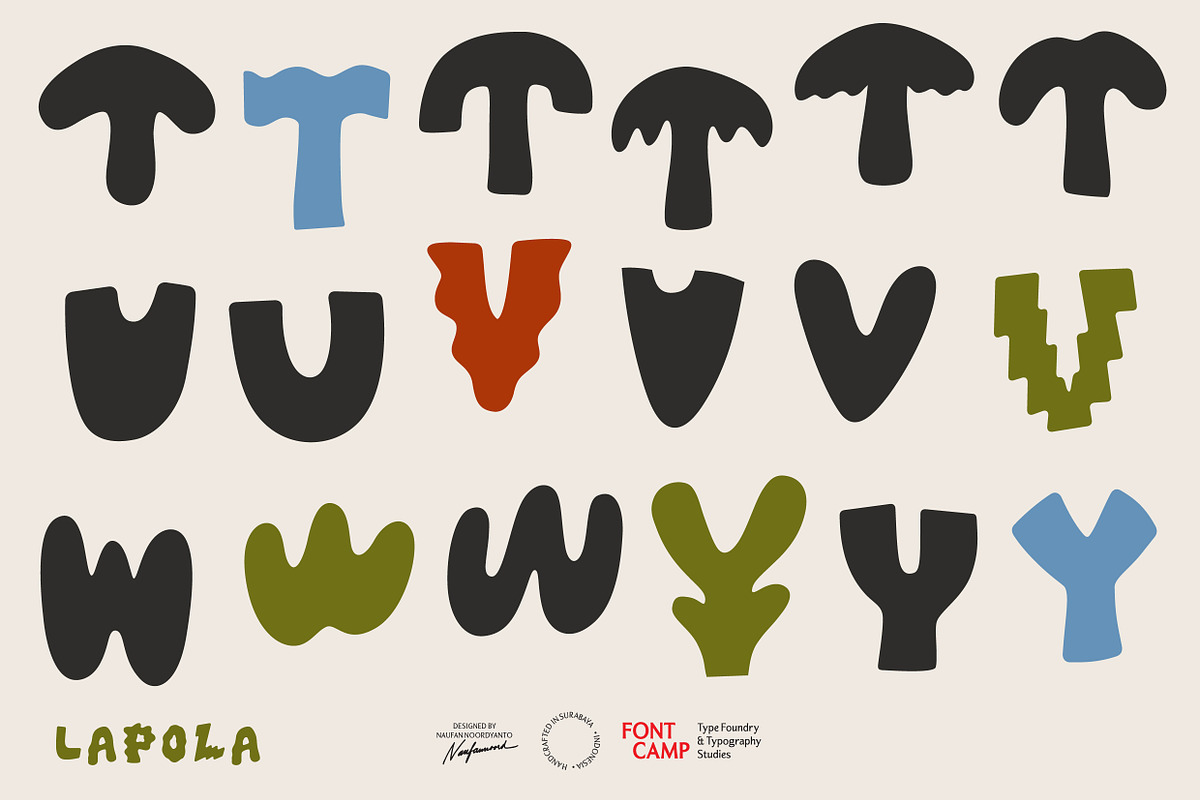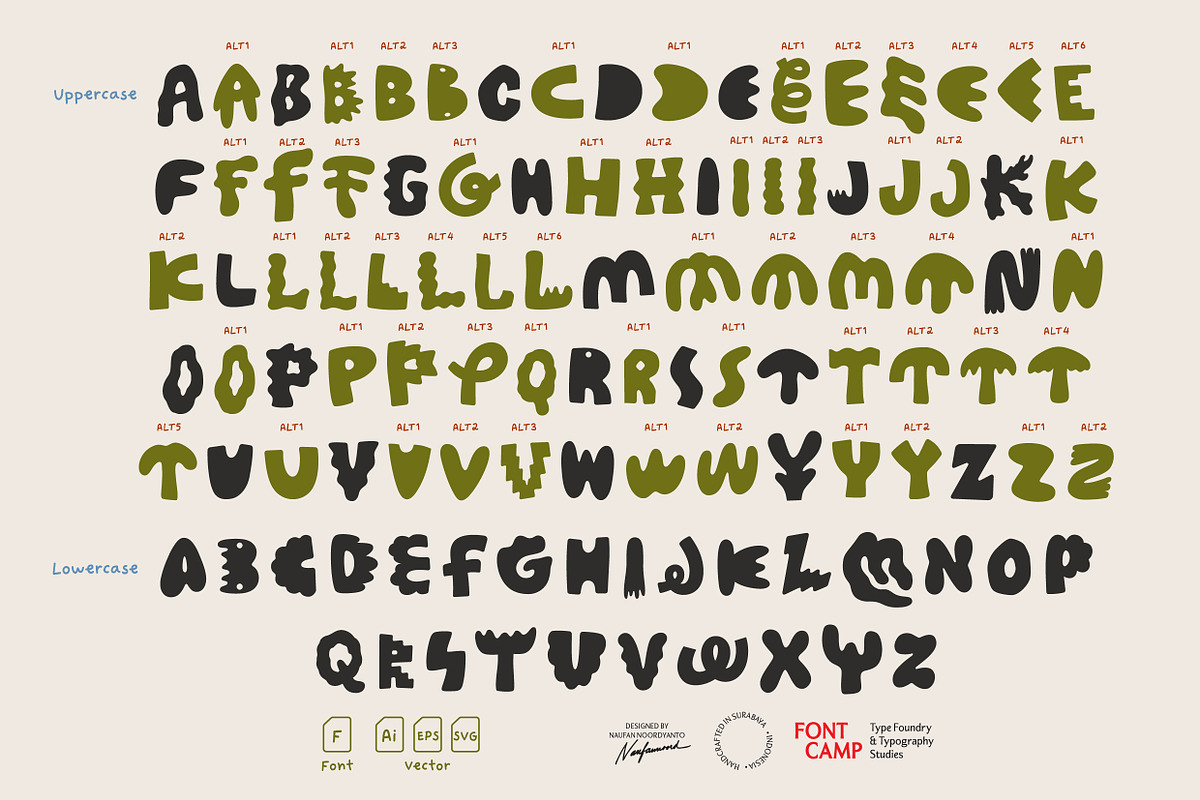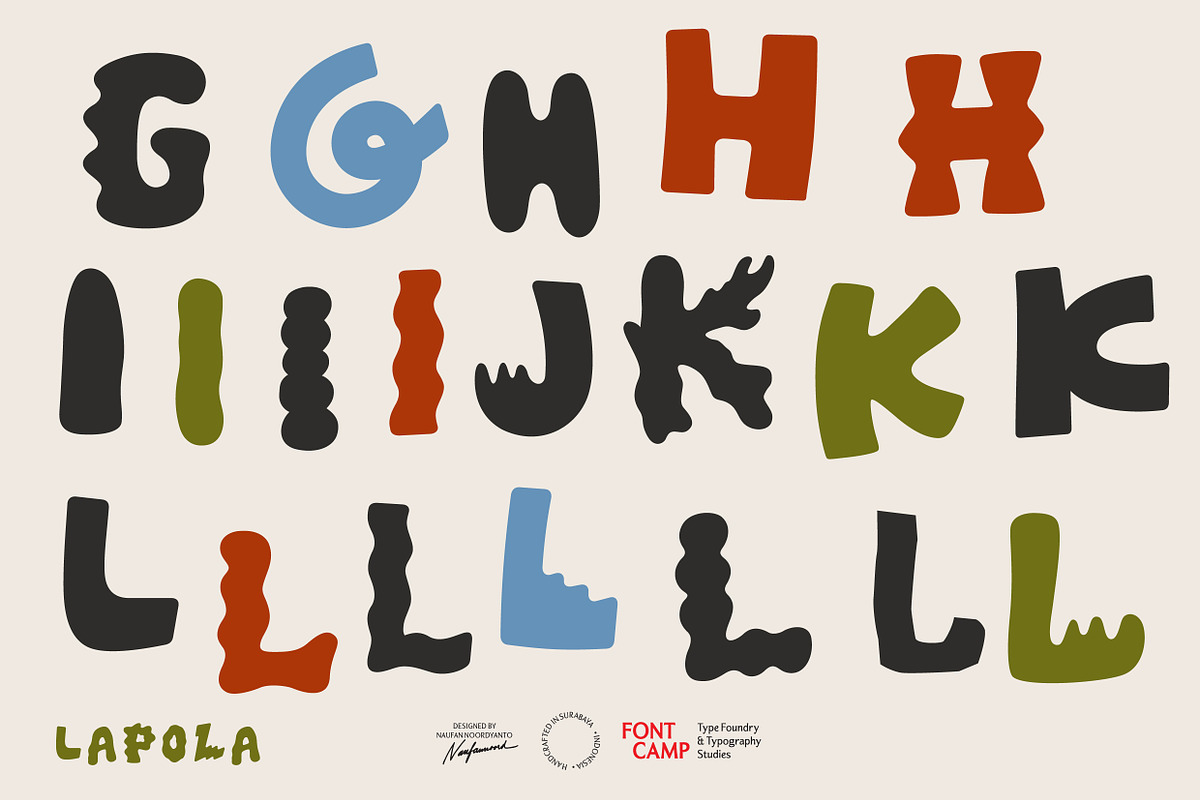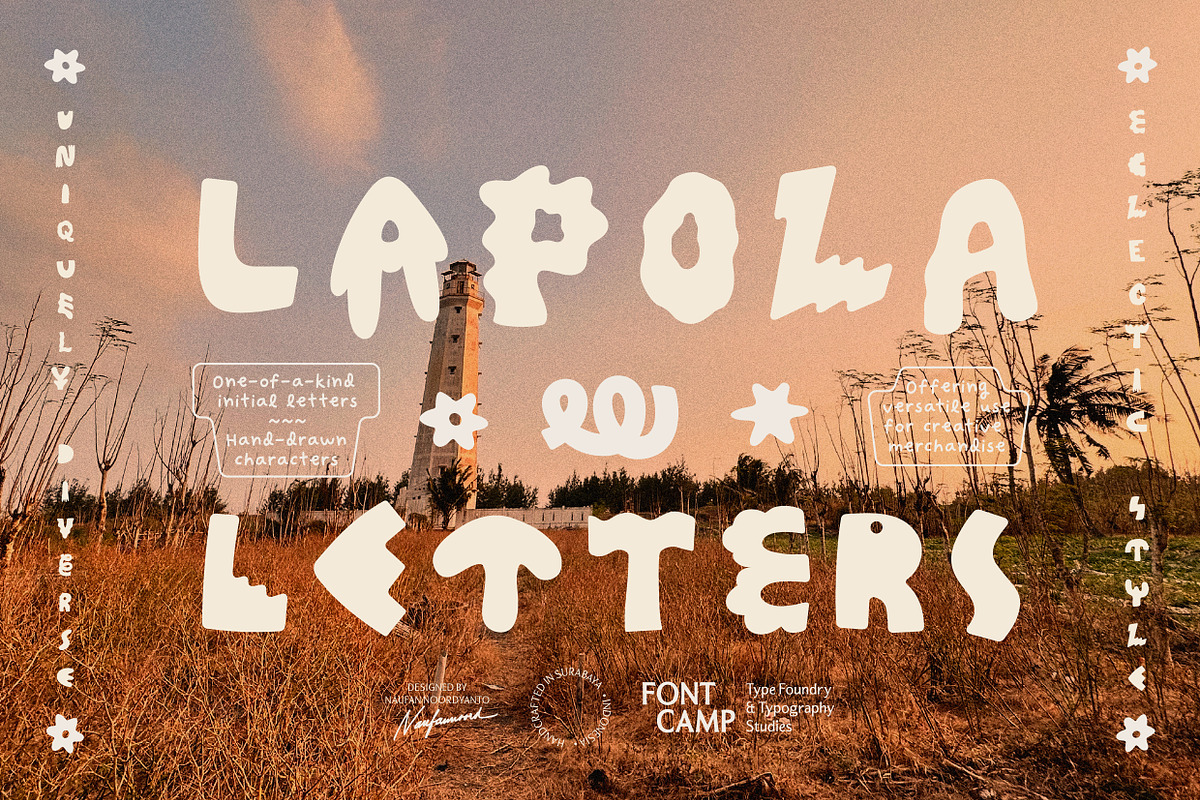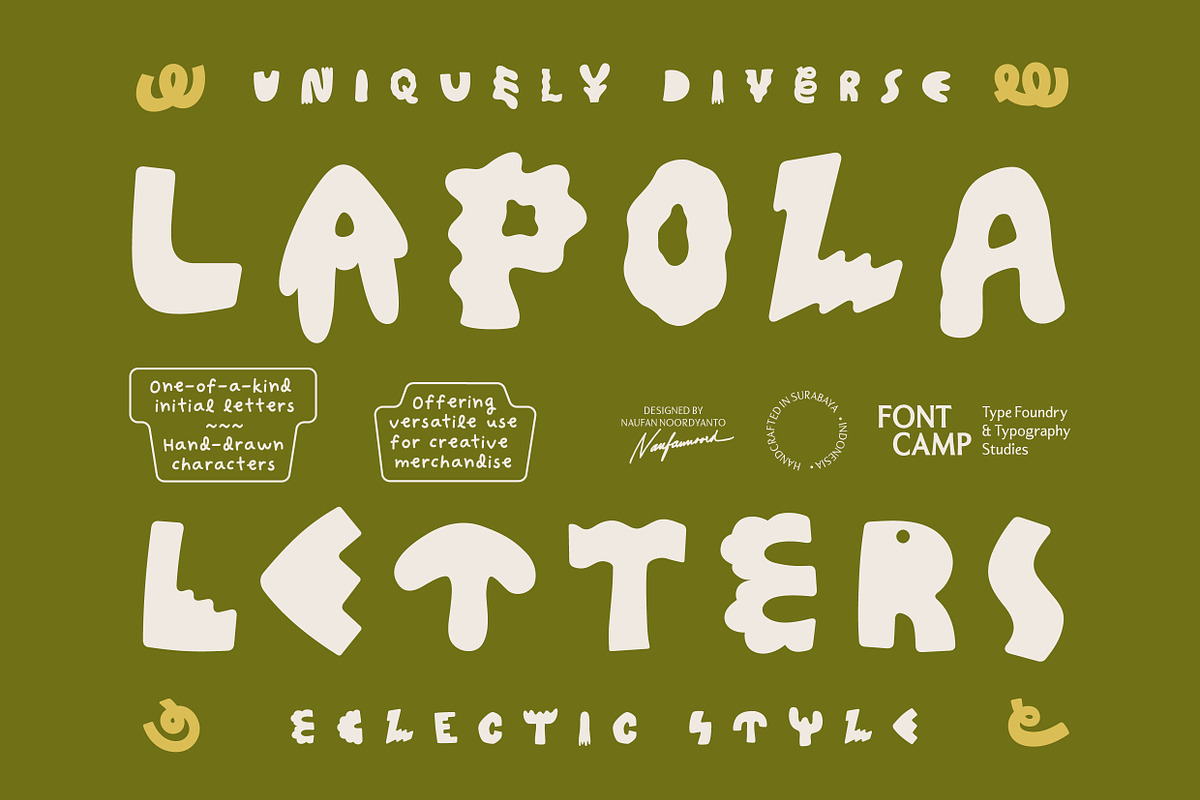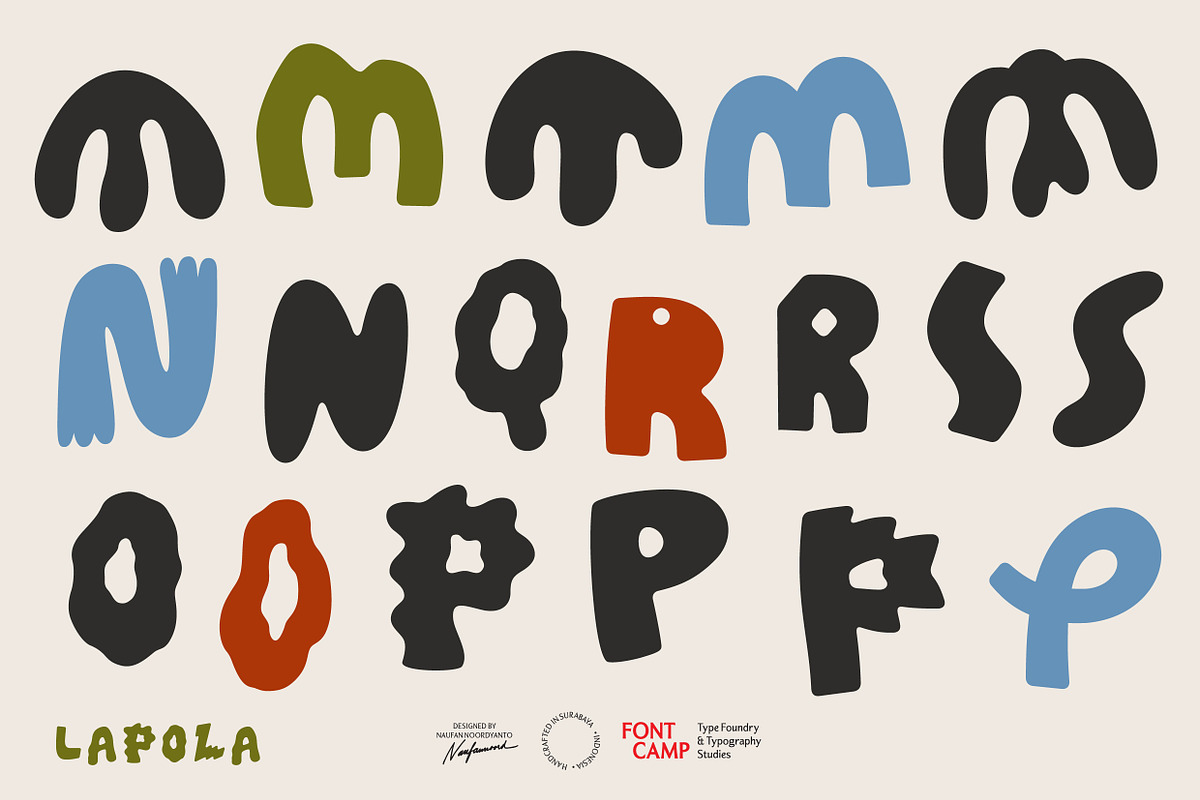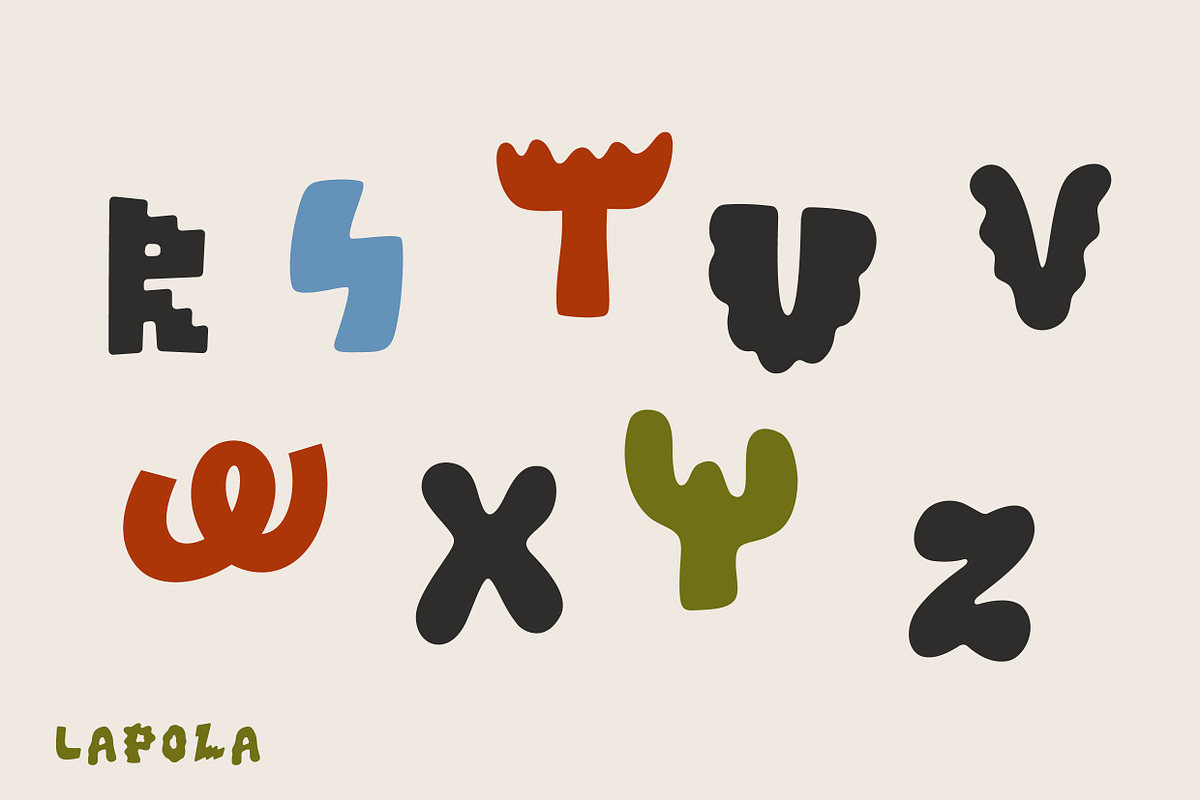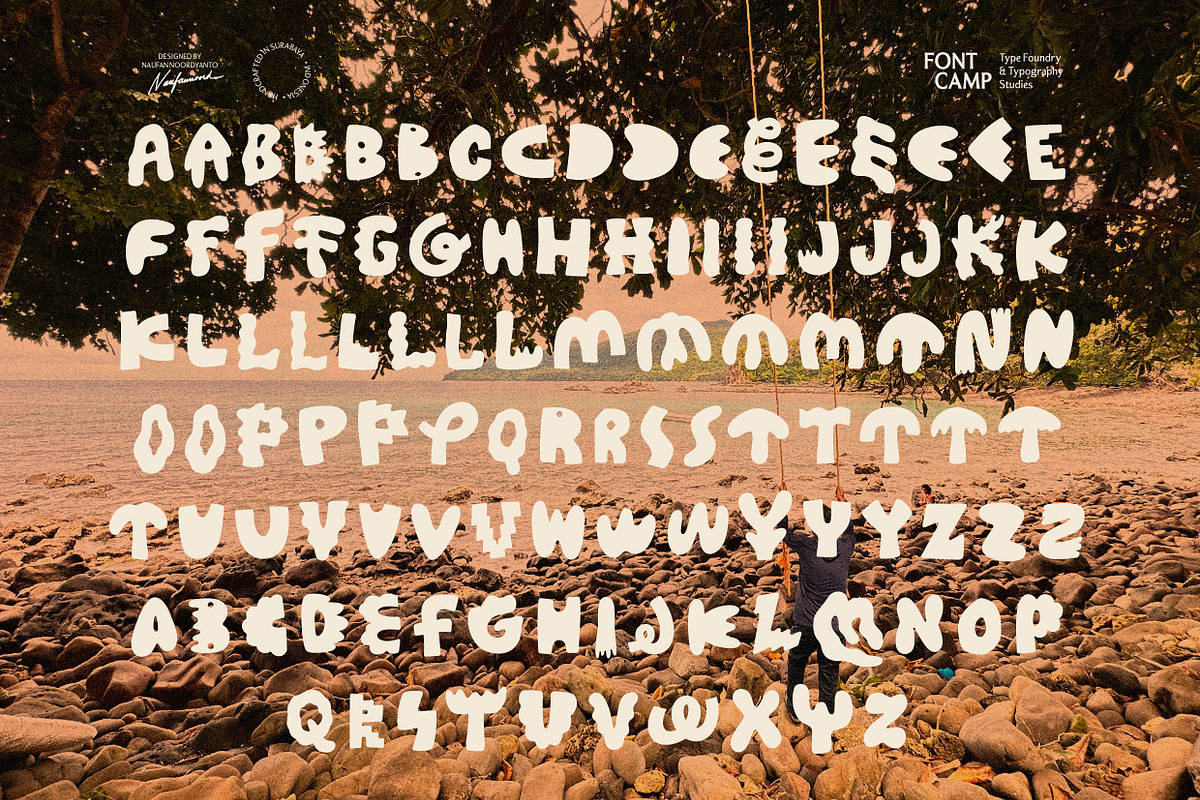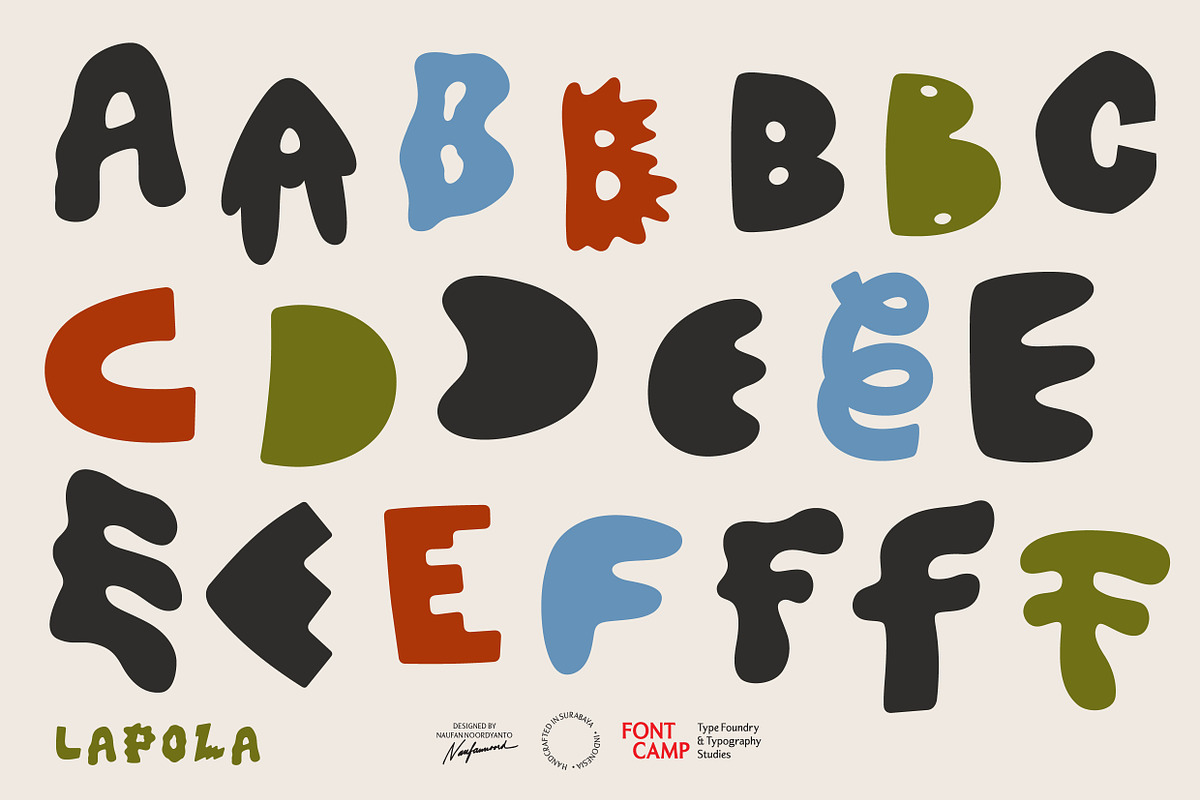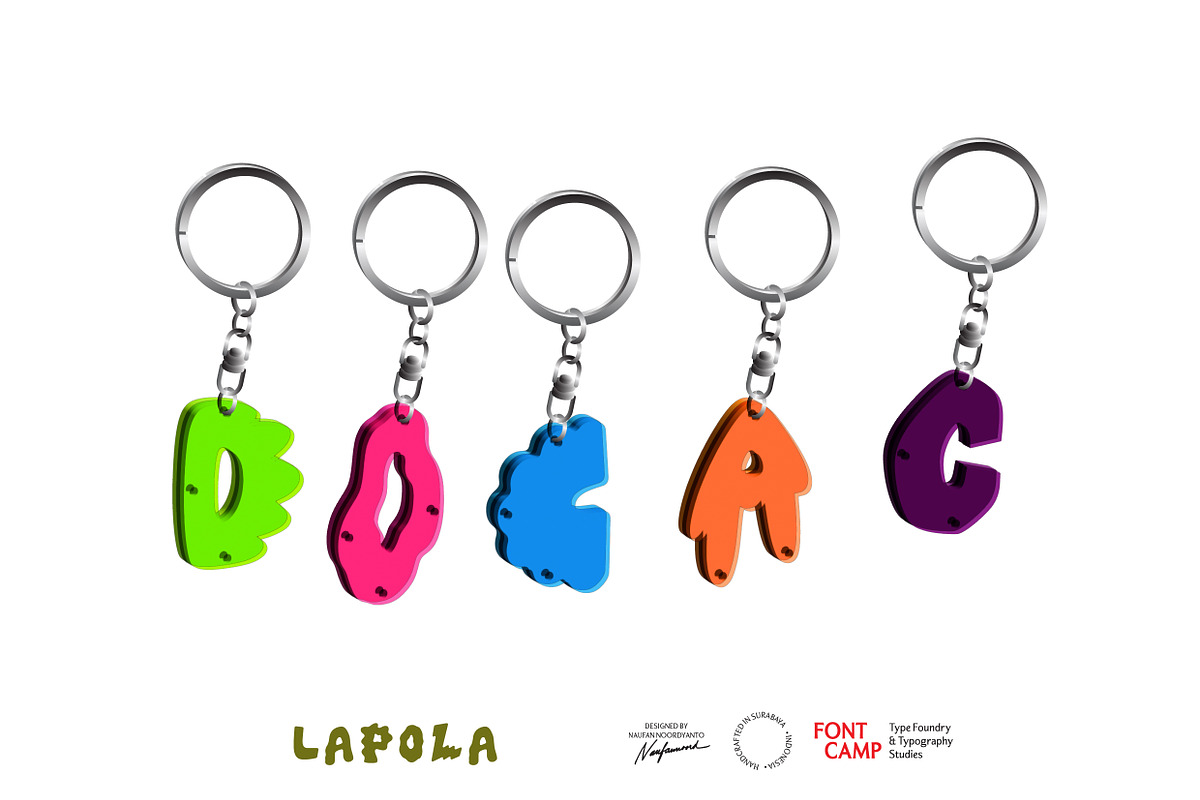
Lapola Letters
Introducing a "Lapola" Font.
DESCRIPTION:
Lapola is a playful and expressive experimental display typeface inspired by the Madurese word "Alapola," meaning various or diverse. Its most prominent feature is the dynamic integration of 117 unique, hand-drawn letterforms and eclectic visual variations into each character, giving the text a personalized, one-of-a-kind, and artistic feeling that mimics diverse creative strokes rather than conventional design tropes.
The letterforms combine individual organic cuts with precise vector execution, allowing for versatile use as initial letters, drop caps, writing decorations, design experimentation, acrylic charms, keychains, and high-impact merchandise layouts that maintain a distinct, bold, and expressive aesthetic.
TECHNICAL SPECIFICATIONS & CAPABILITIES:
Engineered with 117 meticulously crafted glyphs, built for maximum visual impact in display contexts, decorative initials, and personalized merchandise.